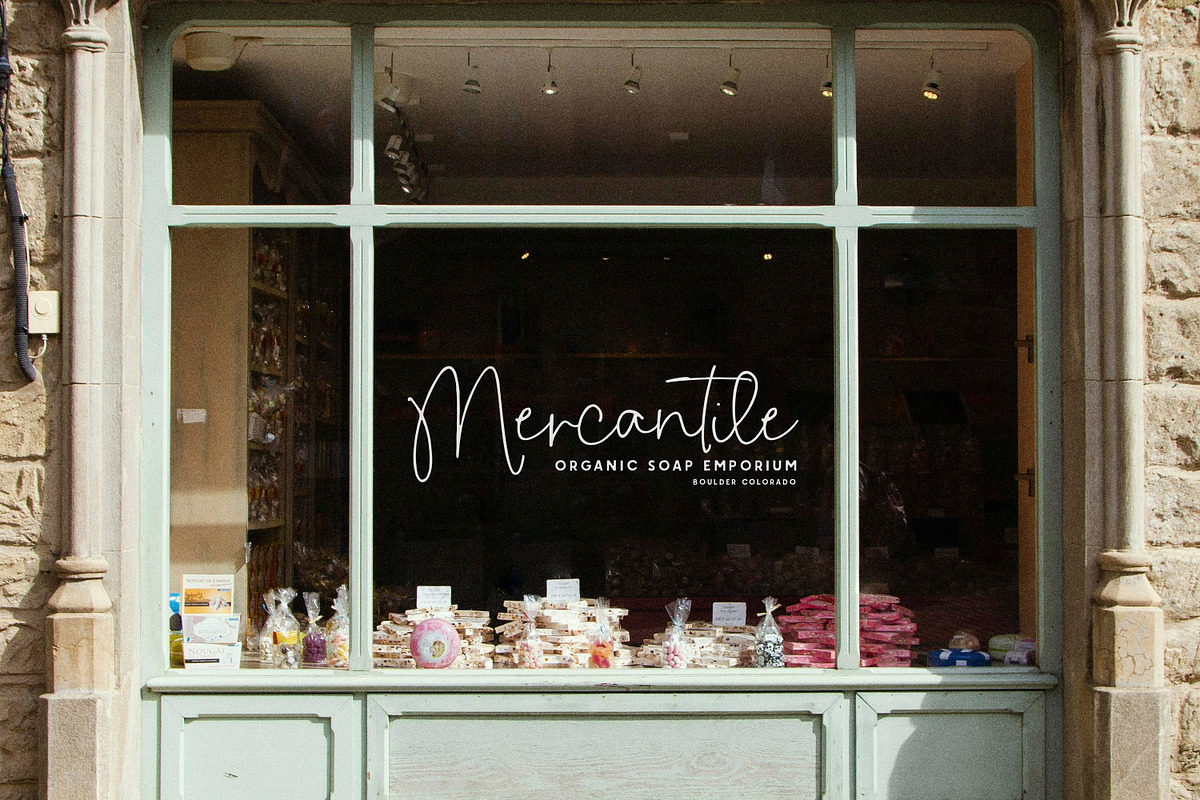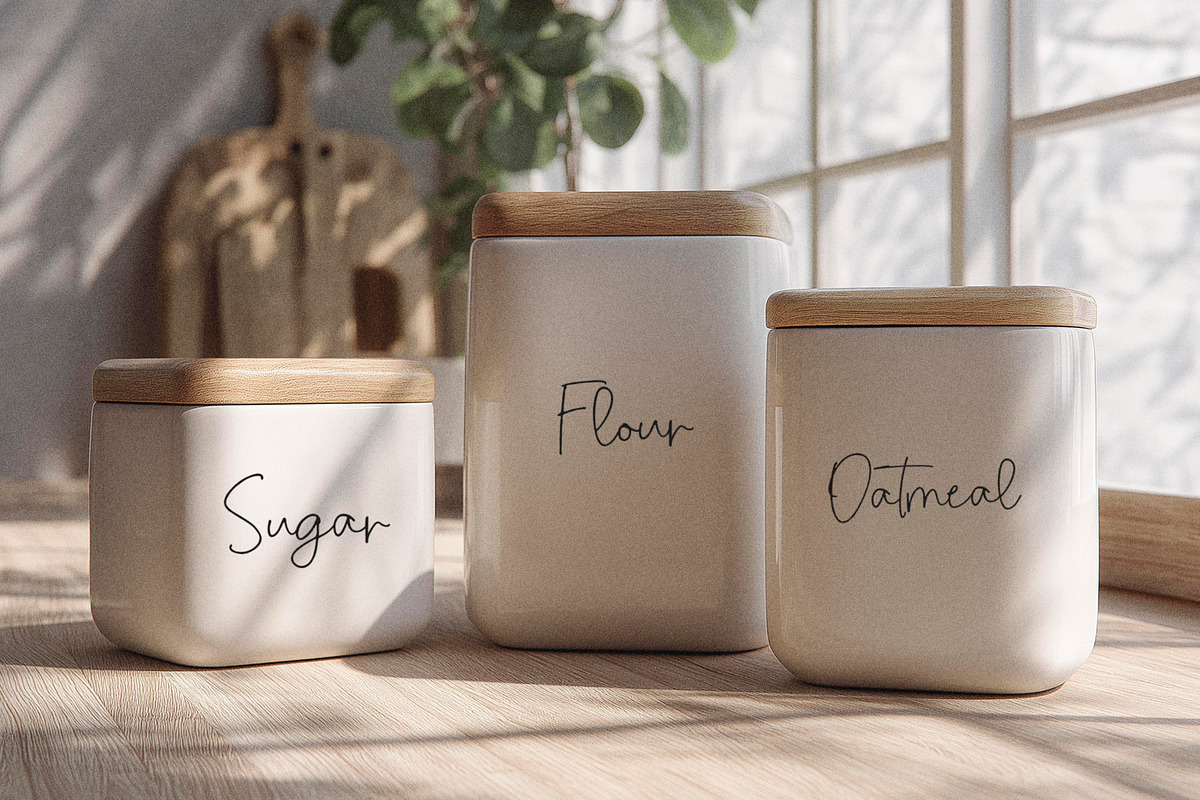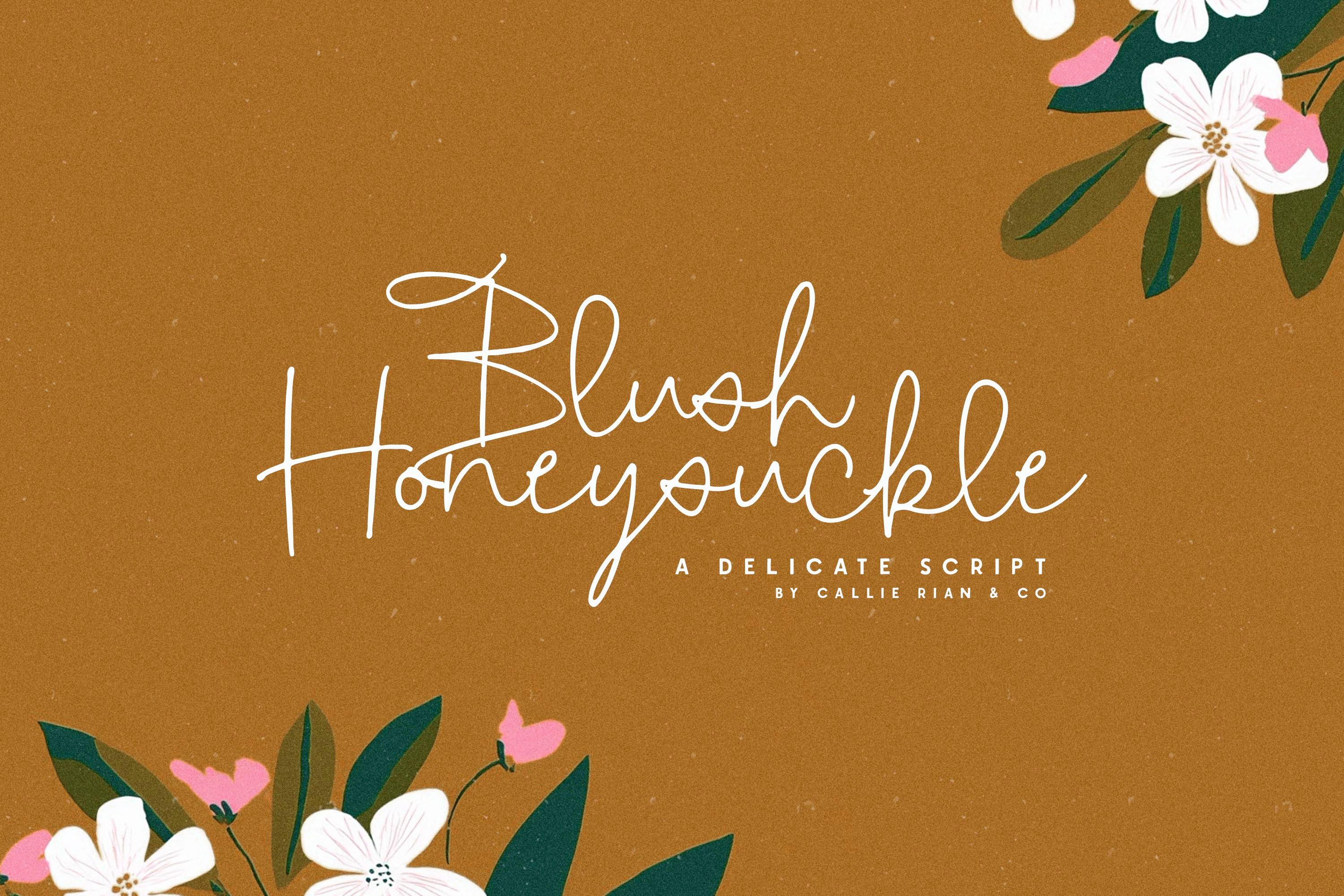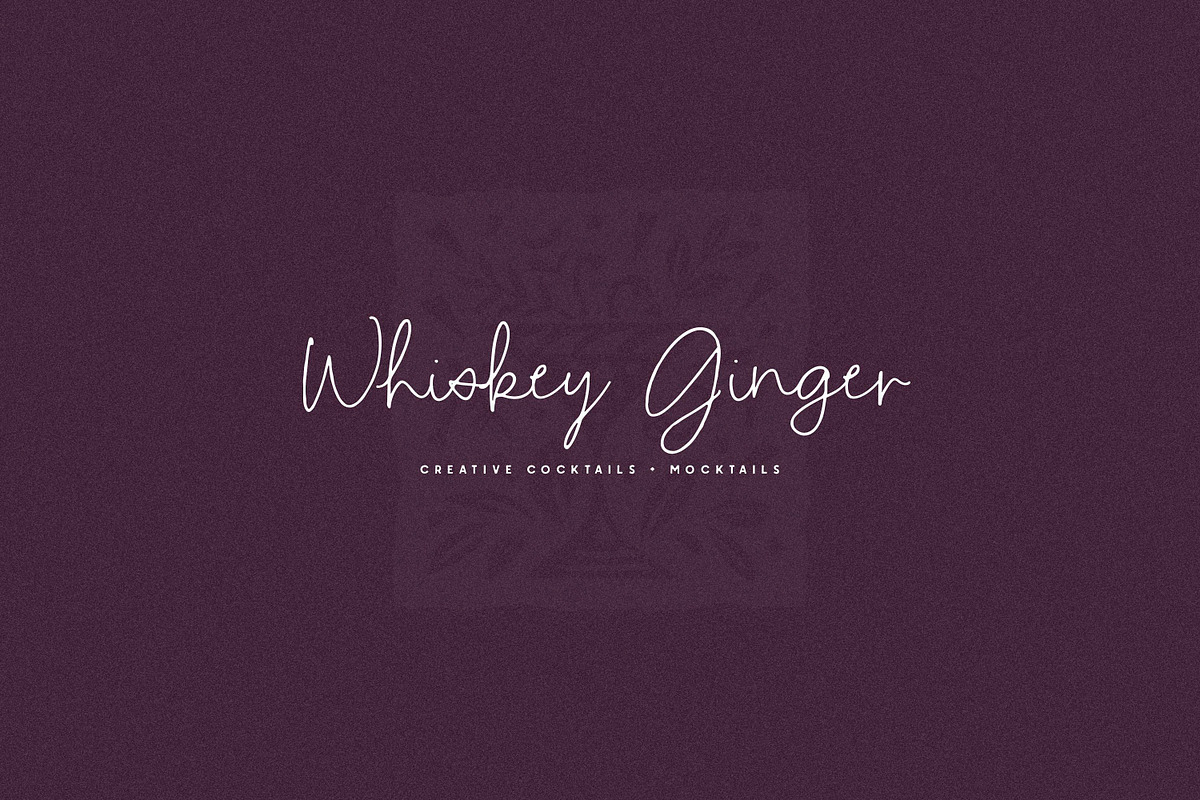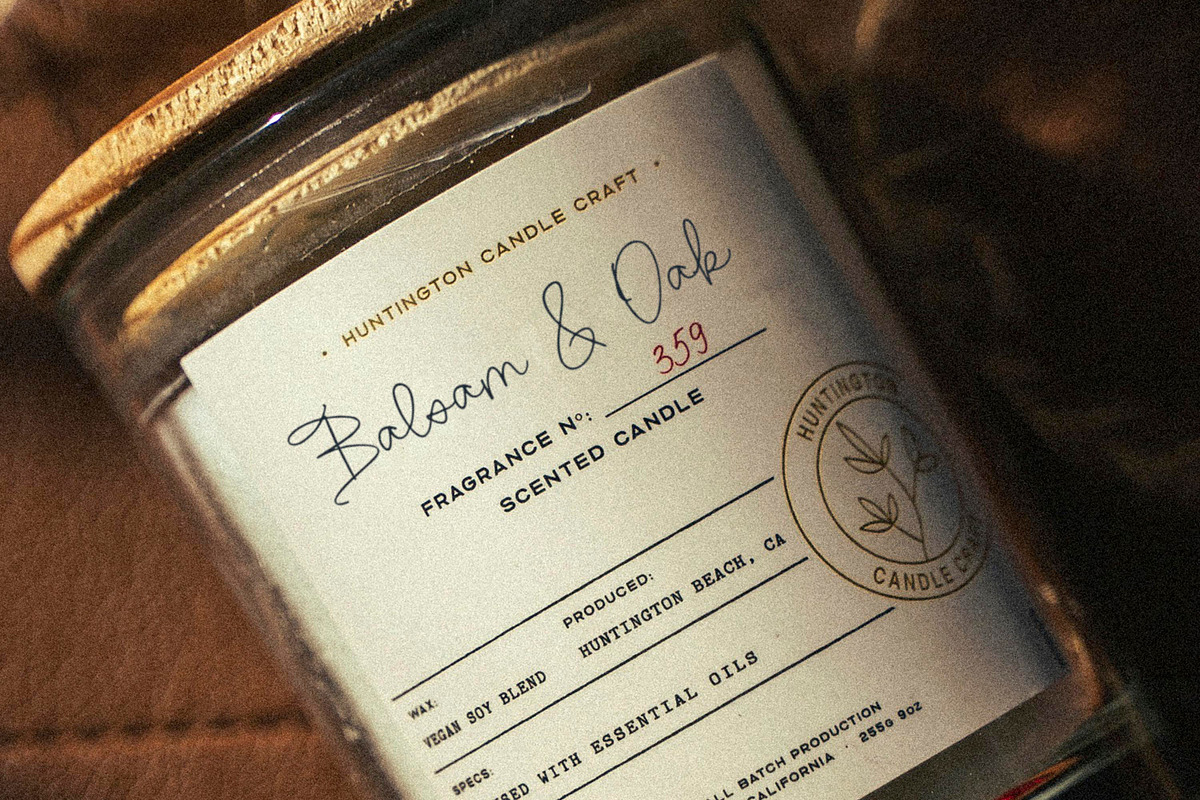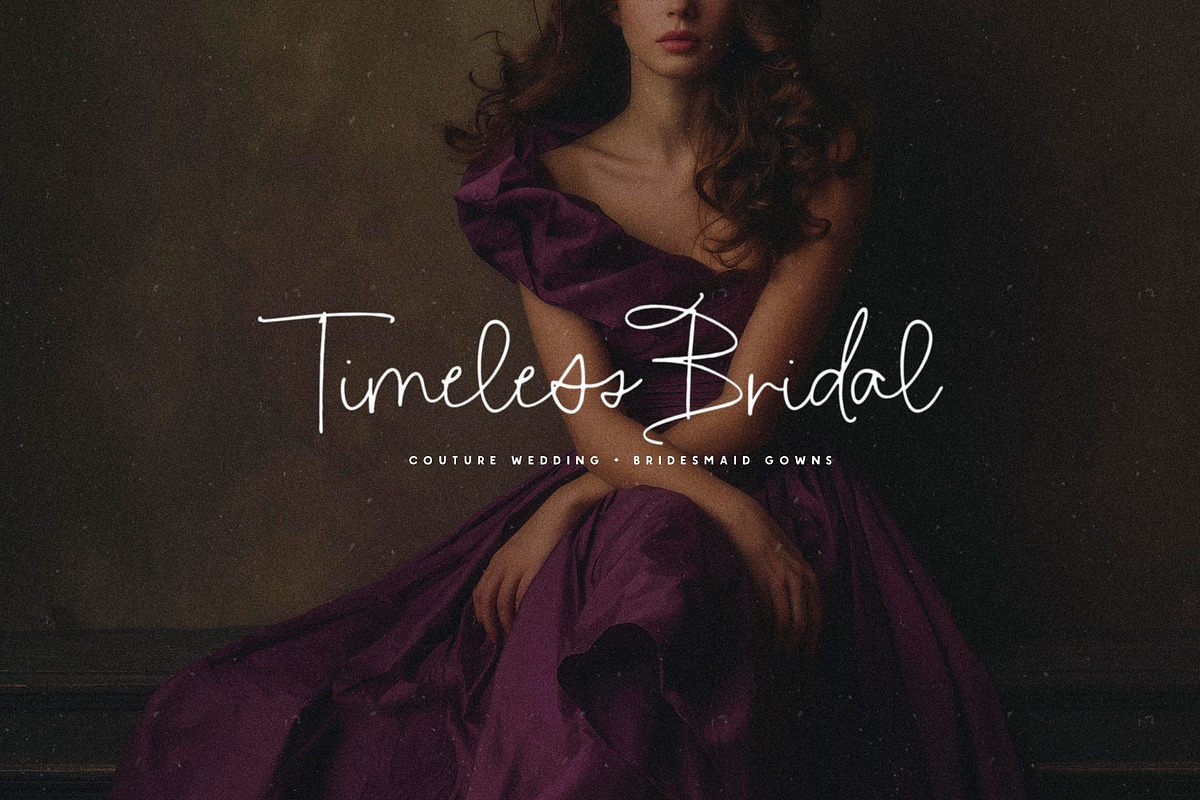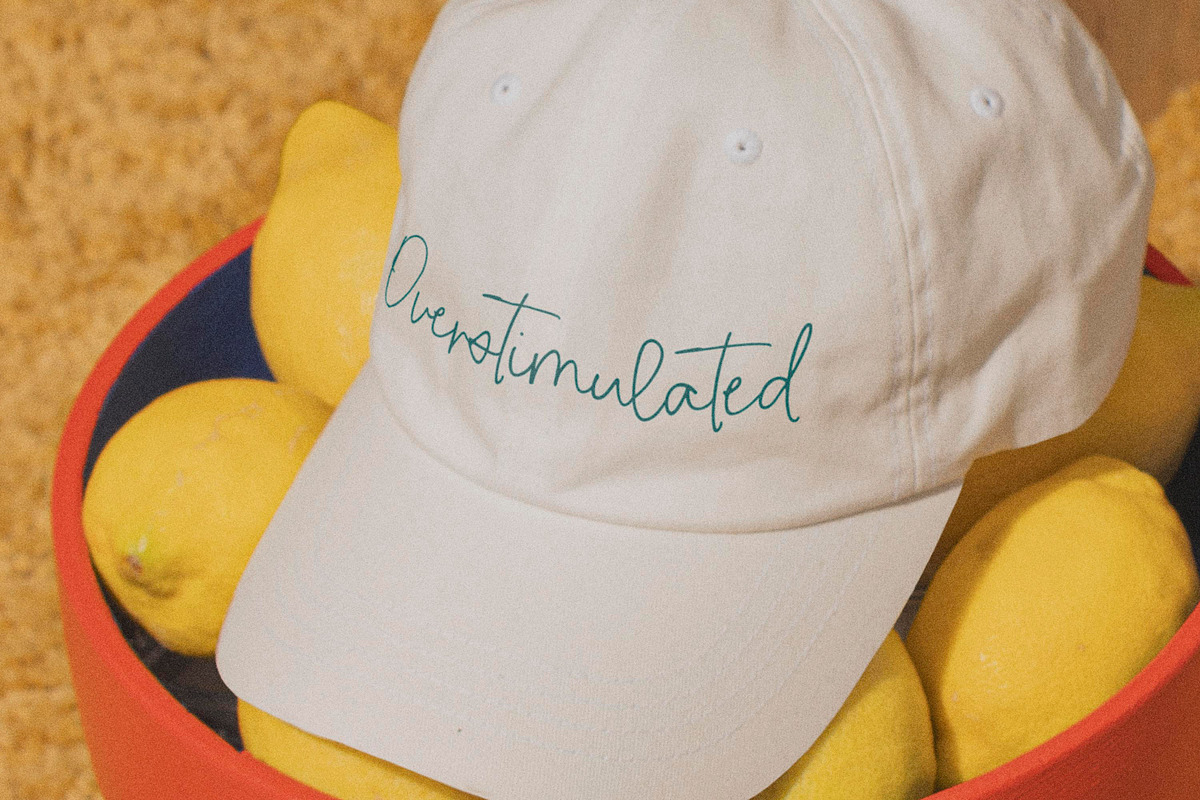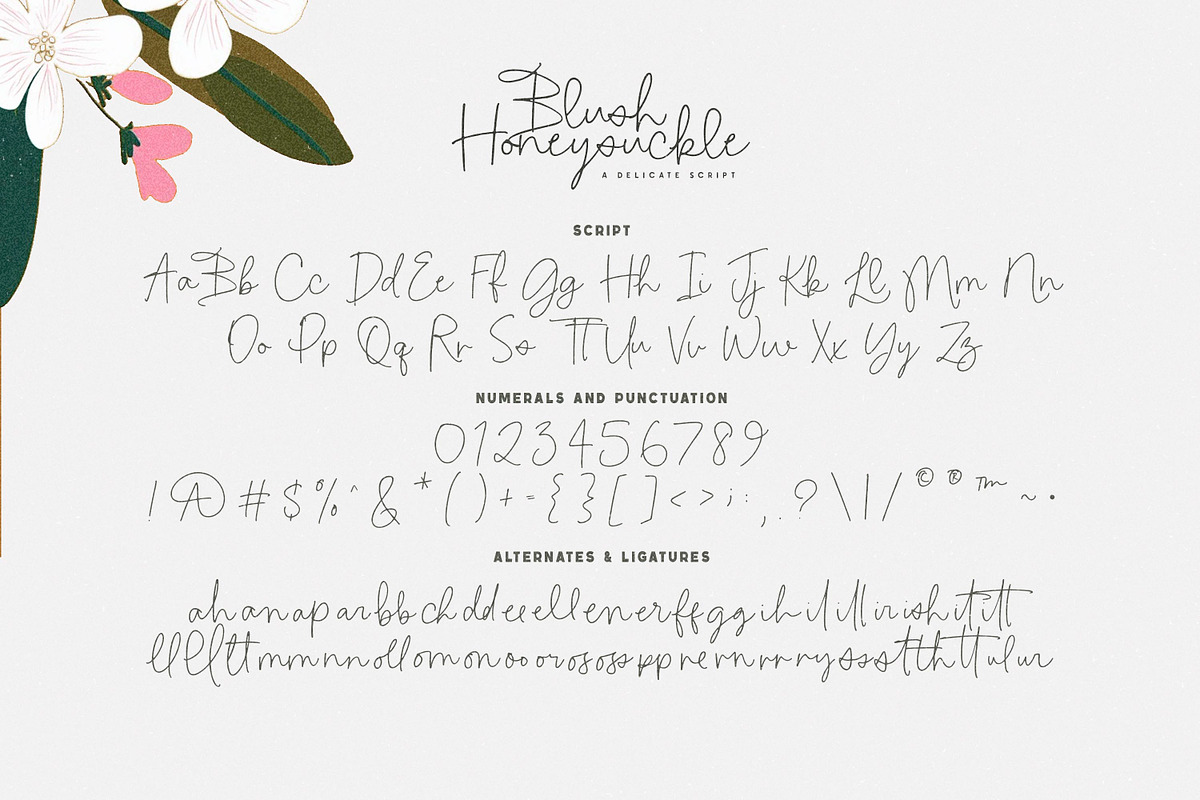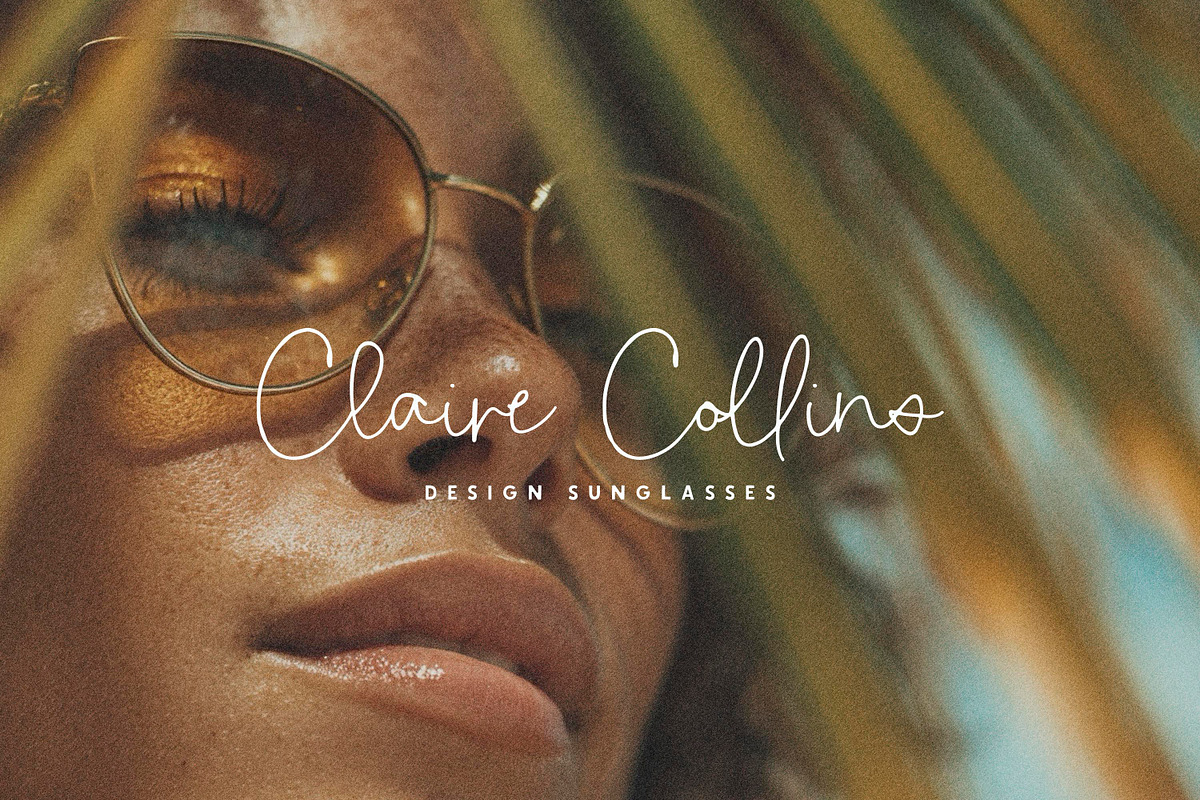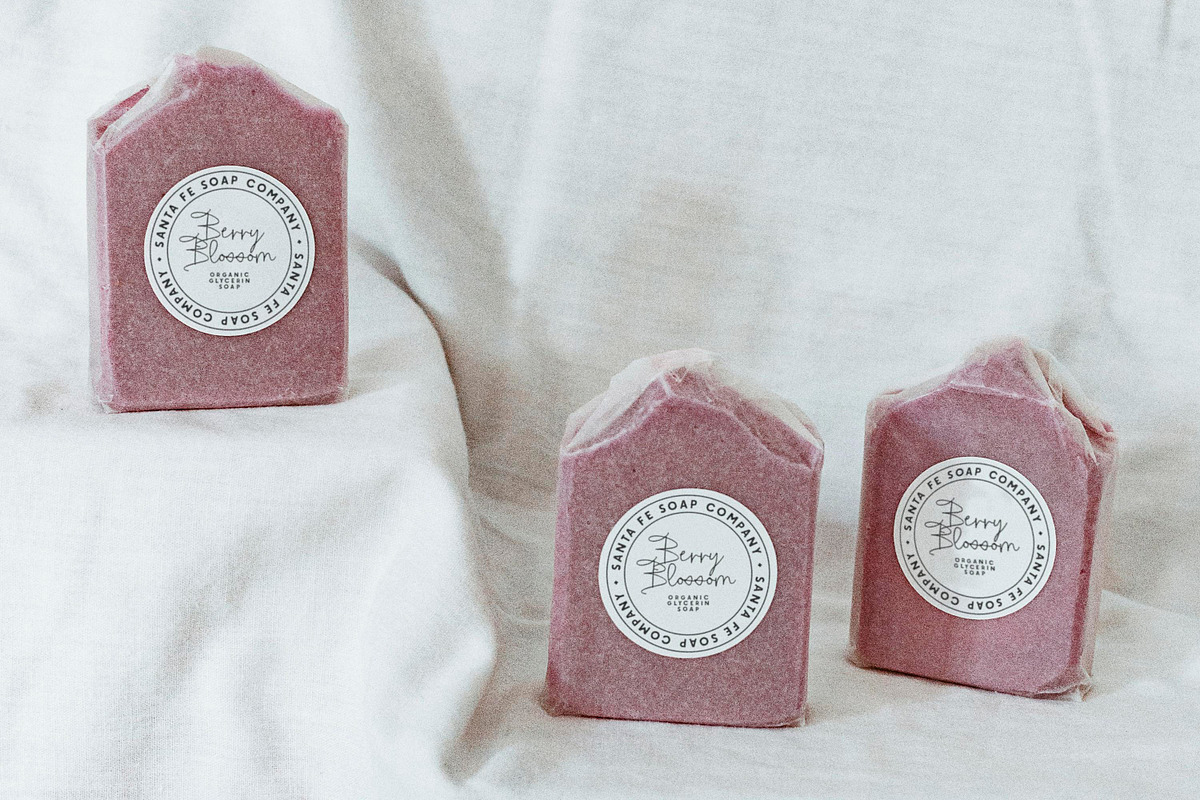
Blush Honeysuckle Script Font
Here’s a sweet little script to celebrate Spring. Introducing, **Blush Honeysuckle!**
This delicately hand-drawn monoline script is darling for logos and branding, but it's versatile enough for labels and packaging!
40+ Ligatures